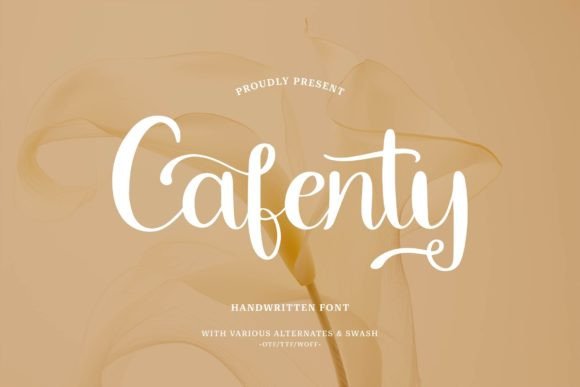
Cafenty Font: Elevate Your Designs with Elegance and Sophistication
In the world of typography, fonts play a crucial role in conveying the tone and personality of a design. For designers and crafters looking to add a touch of elegance and sophistication to their projects, Cafenty Font is an excellent choice. This stylish and elegant script font is perfect for creating beautiful designs that stand out from the crowd.
What Makes Cafenty Font Special?
Cafenty Font is a versatile script font that offers a range of features that make it ideal for various design applications. Some of its key features include:
- Alternate Characters: Cafenty Font offers many alternate characters, allowing designers to add a unique touch to their designs. These alternate characters can be used to create a distinctive look and feel, making each design stand out.
- Decorative Swashes: The font also features decorative swashes that can be used to add a touch of elegance and sophistication to designs. These swashes are perfect for creating beautiful flourishes and embellishments.
- Script Font Style: Cafenty Font has a stylish script font style that is perfect for creating elegant and refined designs. The font’s script style is ideal for designs that require a touch of sophistication and glamour.
Ideal for Invitations, Logos, and Branding
Cafenty Font is perfect for a range of design applications, including:
- Invitations: Whether you’re designing wedding invitations, birthday invitations, or any other type of invitation, Cafenty Font is an excellent choice. The font’s elegant and refined style makes it perfect for creating beautiful and sophisticated invitations.
- Logos: Cafenty Font is also ideal for creating logos that require a touch of elegance and sophistication. The font’s unique and creative style makes it perfect for businesses that want to stand out from the crowd.
- Branding: For businesses looking to create a strong brand identity, Cafenty Font is an excellent choice. The font’s stylish and elegant style makes it perfect for creating a cohesive brand image.
Tips for Using Cafenty Font
To get the most out of Cafenty Font, here are some tips to keep in mind:
- Experiment with Alternate Characters: Don’t be afraid to experiment with the font’s alternate characters. These characters can be used to create a unique and distinctive look that sets your design apart.
- Use Decorative Swashes: The font’s decorative swashes are perfect for adding a touch of elegance and sophistication to your designs. Use them to create beautiful flourishes and embellishments.
- Pair with Other Fonts: Cafenty Font can be paired with other fonts to create a unique and creative look. Experiment with different font combinations to find the perfect pairing for your design.
Cafenty Font is a stylish and elegant script font that is perfect for designers and crafters looking to add a touch of sophistication and elegance to their projects. With its alternate characters, decorative swashes, and script font style, Cafenty Font is ideal for creating beautiful designs that stand out from the crowd. Whether you’re designing invitations, logos, or branding materials, Cafenty Font is an excellent choice.